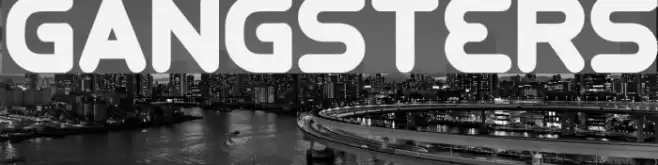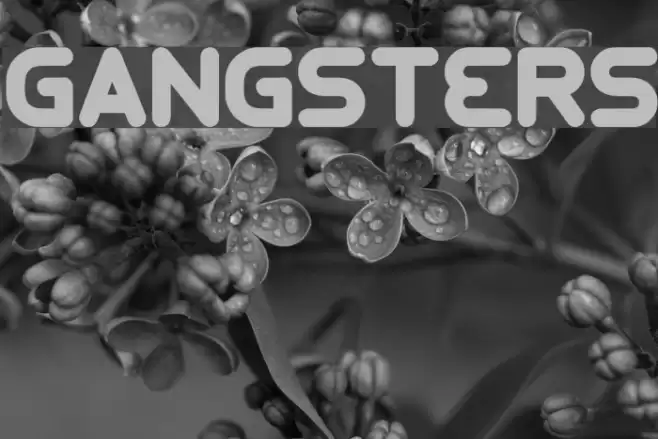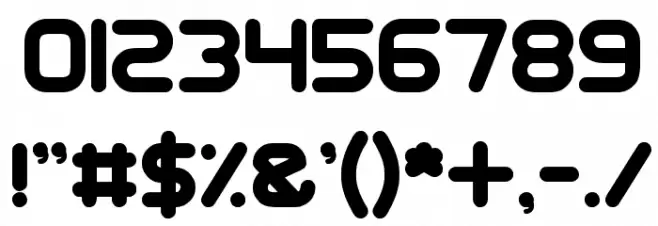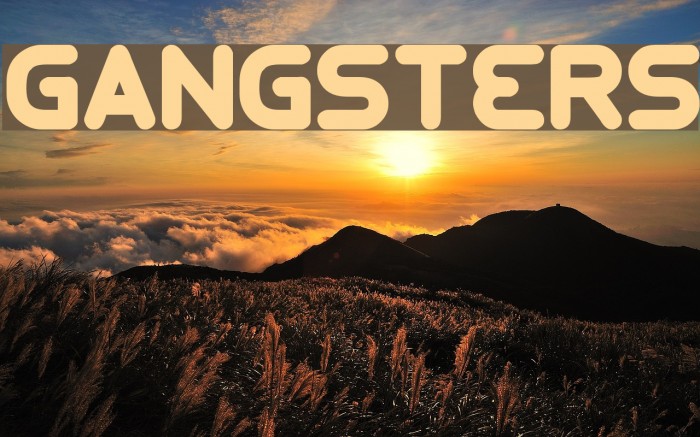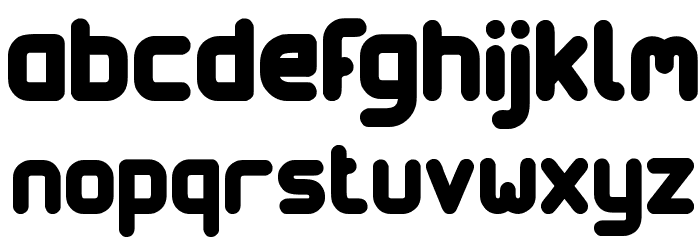
GANGSTERS Font
GANGSTERS Description
This font features a bold, rounded style with a modern and playful aesthetic. The characters are uniformly thick, giving them a strong presence on the page. The rounded edges soften the overall look, making it approachable and friendly. The uppercase and lowercase letters maintain a consistent design, with the lowercase letters slightly smaller in height. Numbers and special characters are designed to match the boldness and roundness of the alphabet, ensuring a cohesive appearance across all text elements.
A bold, rounded font with a modern and playful style from Uncategorized fonts.
- Proposed Projects: Ideal for branding, children's books, playful posters, and modern advertising campaigns.